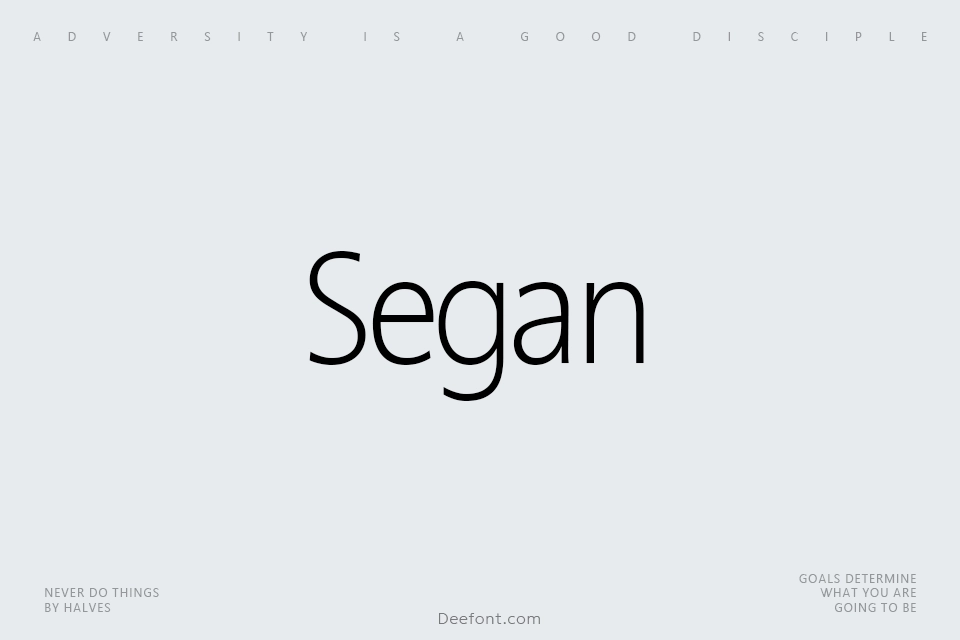
Segan Font
Segan is a clean and modern sans-serif font designed by Rodney Rogers. This thin typeface features crisp curves and accurate nodes, offering a sleek and professional appearance perfect for contemporary designs. With its versatile functionality and extensive glyph set, Segan works excellently for logos, websites, posters, and creative projects. The font balances modern sophistication with classic elegance, making it an ideal choice for designers seeking both visual appeal and legibility in their typography work.
Designed by:Rodney Rogers